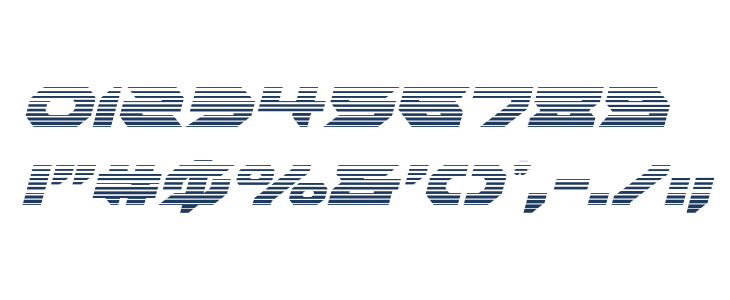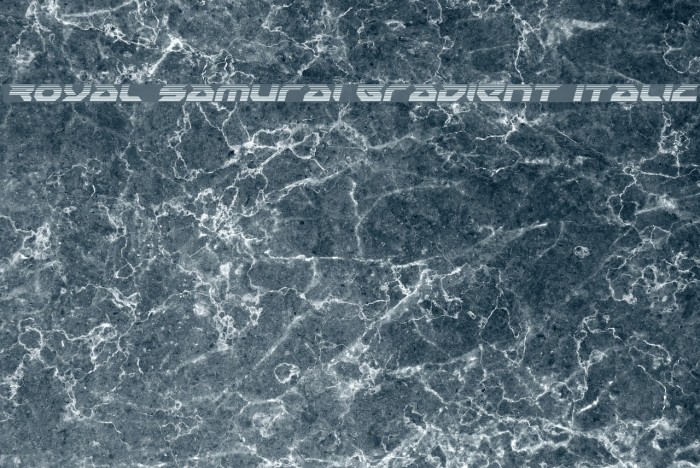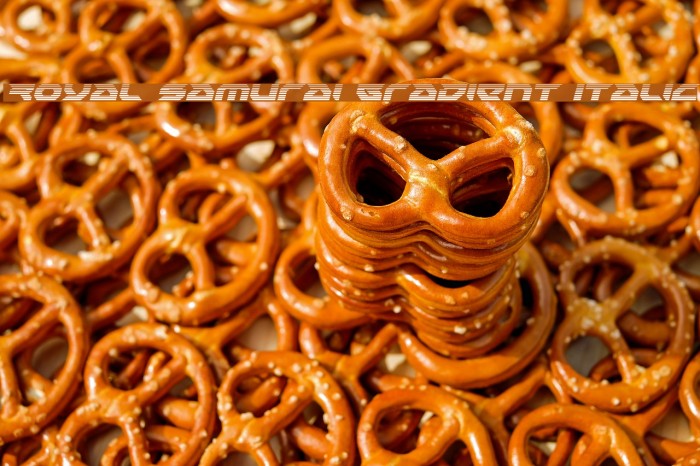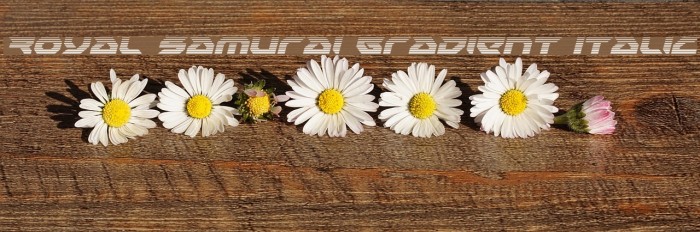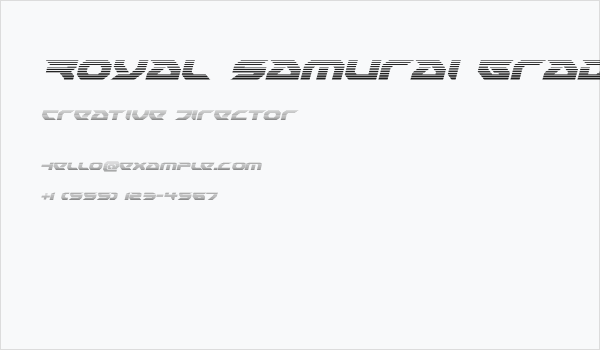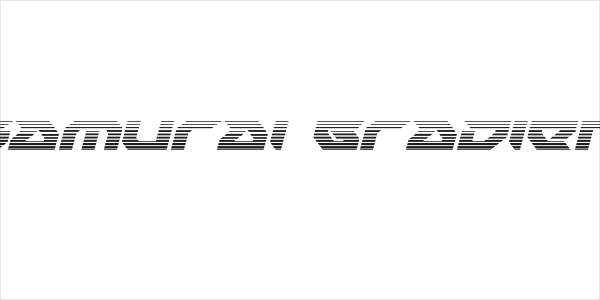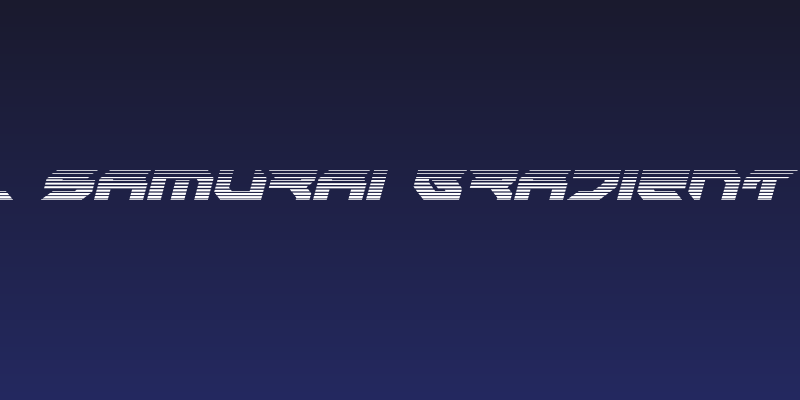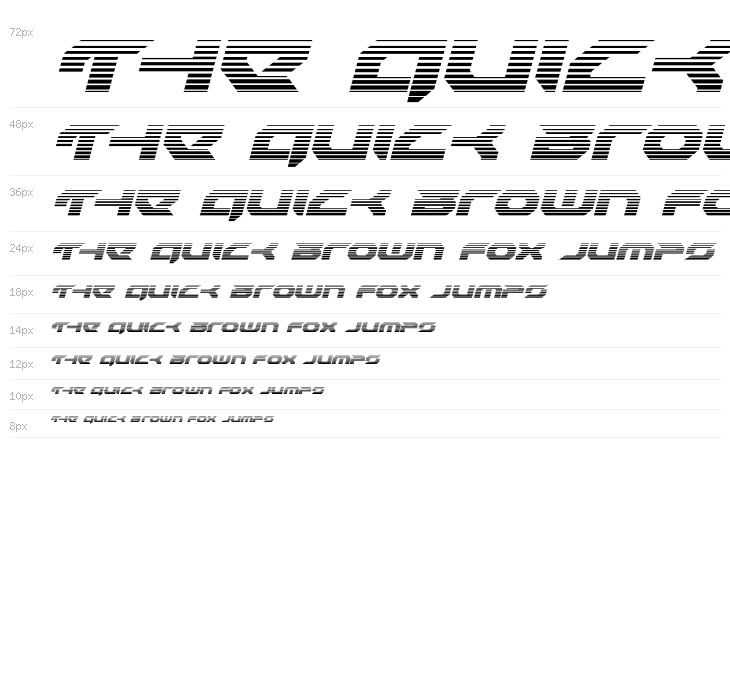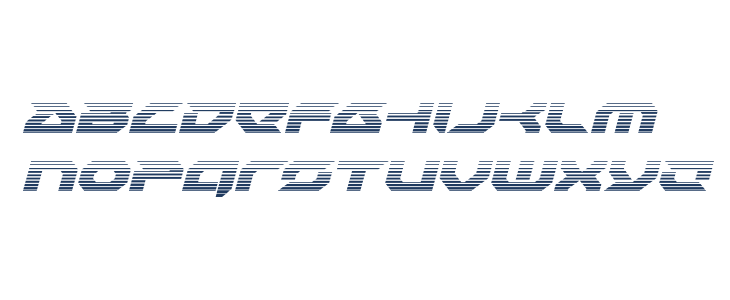
Royal Samurai Gradient Italic Font
Royal Samurai Gradient Italic Description
This font features a bold, futuristic design with a distinct gradient effect that gives each character a dynamic, three-dimensional appearance. The italicized style adds a sense of motion and speed, making it ideal for projects that require a modern and energetic look. The characters are constructed with sharp angles and clean lines, creating a sleek and edgy aesthetic. The spacing between characters is tight, enhancing the compact and cohesive feel of the text. This font is perfect for eye-catching headlines, logos, and branding materials that aim to convey innovation and forward-thinking.
| Proposed Projects | Ideal for futuristic branding, tech-related logos, dynamic headlines, and modern advertising campaigns. |